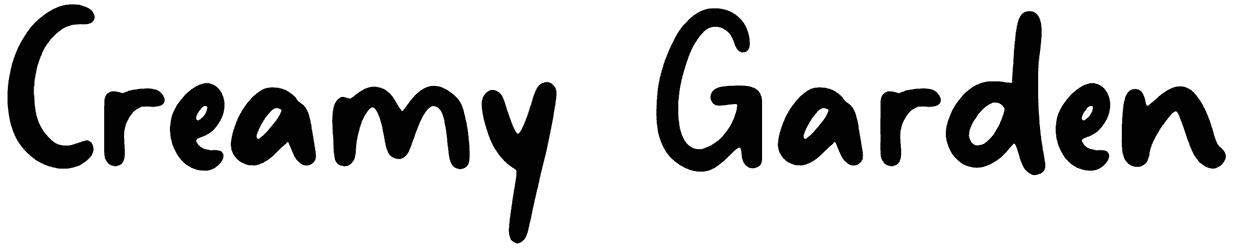
Creamy Garden Font
Say hello to Creamy Garden, a playful handwritten font that gives off a friendly, natural feel in a simple way. It supports uppercase and lowercase letters, numbers, and some necessary punctuation. This font can enhance your imagination and fit well for many areas of applications such as carton posters, comic books, product packaging, birthday invitations, and other stuff related to children.